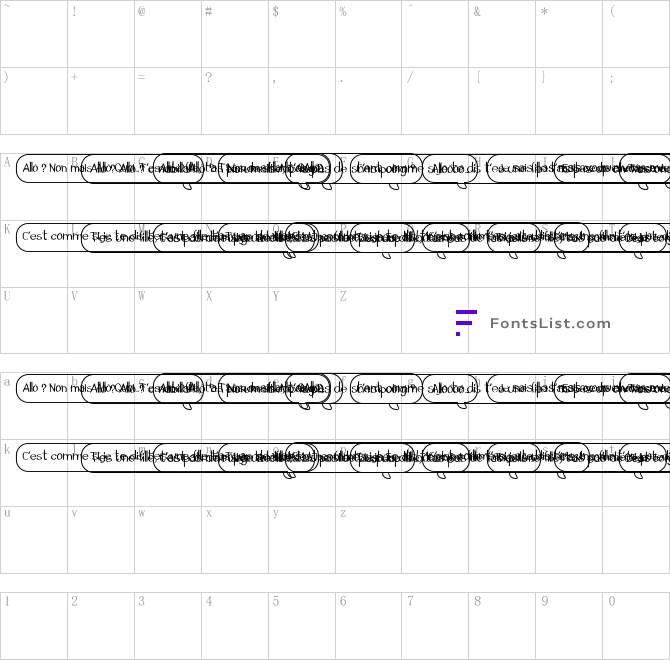
- Font Name:Allo t'as pas de shampoing
Allo-t-as-pas-de-shampoing.ttf is a very beautiful artistic font, Allo-t-as-pas-de-shampoing.ttf is widely used in the design and printing of various books and pictures,Allo-t-as-pas-de-shampoing.ttf has a strong visual impact,Allo-t-as-pas-de-shampoing.ttf is a commonly used font in newspapers, magazines and books, and is used in posters, e-commerce Poster design, store design, logo design, font design and other fields.Allo-t-as-pas-de-shampoing.